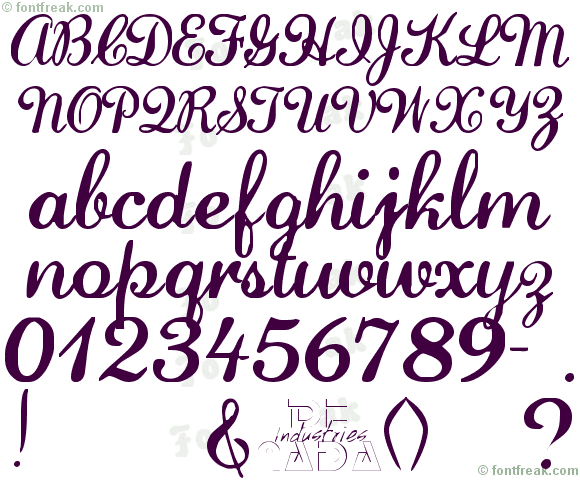
LaurenScript Regular
About Lauren Script
Lauren Script, designed by Mike Allard in 1992, is a charming handwritten font that exudes a warm and inviting character. As a script font, it captures the essence of human touch with its fluid, cursive strokes and elegant loops. The design features a moderate stroke weight with subtle variations that add depth and personality, while the overall spacing is balanced, making it legible yet sophisticated. Decorative elements such as flourishes and swashes enhance its aesthetic appeal, giving it a unique flair that stands out in any setting.
This versatile font is perfect for a range of creative applications. It shines in wedding invitations, where its romantic style can enhance the sentiment of the occasion. Additionally, Lauren Script is an excellent choice for menu designs in upscale restaurants, offering a touch of elegance that complements fine dining experiences. Graphic designers can also use it effectively in branding projects, particularly for businesses that wish to convey a personal and approachable image. Moreover, it fits beautifully in greeting cards and social media graphics, allowing content creators to add a handwritten feel to their visuals.
What sets Lauren Script apart is its ability to combine simplicity with sophistication, making it ideal for both casual and formal applications. Its timeless charm and versatility ensure that it will remain a favorite among designers and creatives alike, making it a valuable addition to any font library.